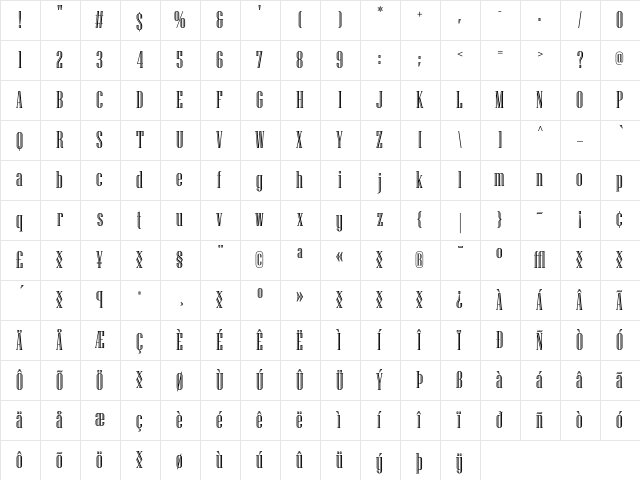
Niagara Engraved
| Style | Engraved |
Design Context for Niagara Typeface
Niagara brings ornamental detail and strong personality to headlines and identities, where visual impact matters more than quiet functionality.
Font Pairing: Pair with a clean neutral sans-serif for body copy to let Niagara's character lead without overwhelming the composition.
Pro Tip: Use Niagara exclusively at display sizes — it was designed to be seen, not read at length. Let a neutral companion handle body copy.